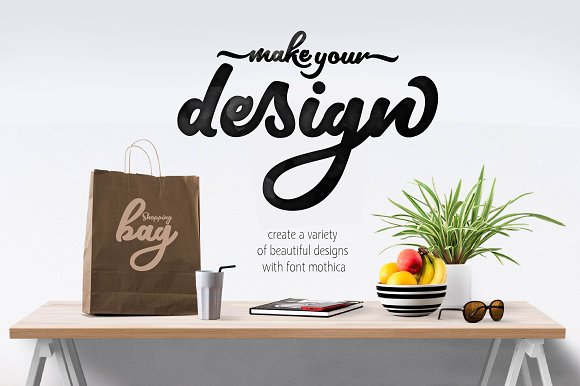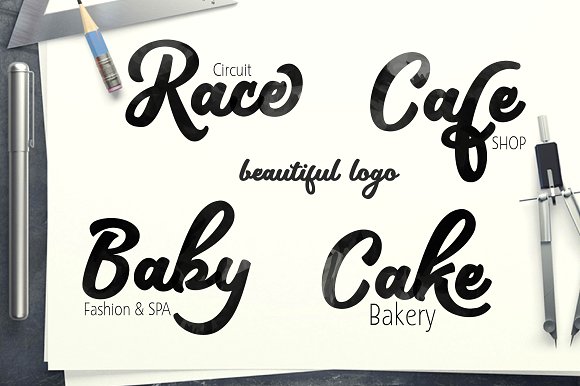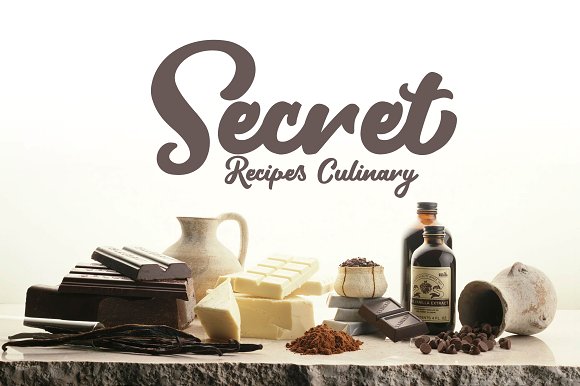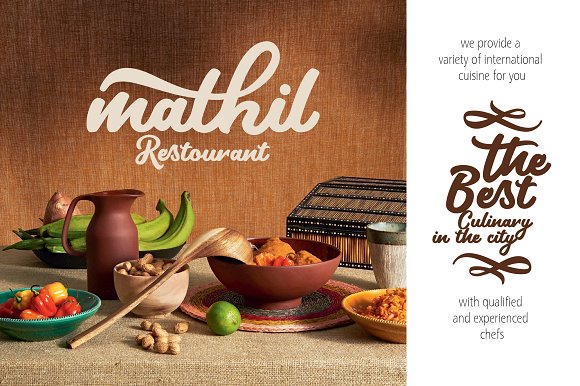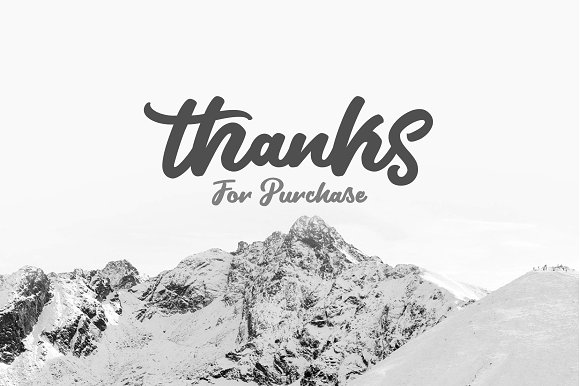
Introduction to Mothica Bold Font
Mothica Bold, a beautiful handwritten script.
It’s a fluid font that works well in many different types of projects This professional looking font is easy to read and works well for marketing & branding as well as craft projects.
Key Features of Mothica Bold Font
Why Choose Mothica Bold Font?
Mothica Bold Font offers exceptional quality and versatility, making it a valuable addition to your design toolkit. Whether you’re creating for personal projects or commercial use, Mothica Bold Font delivers professional results.